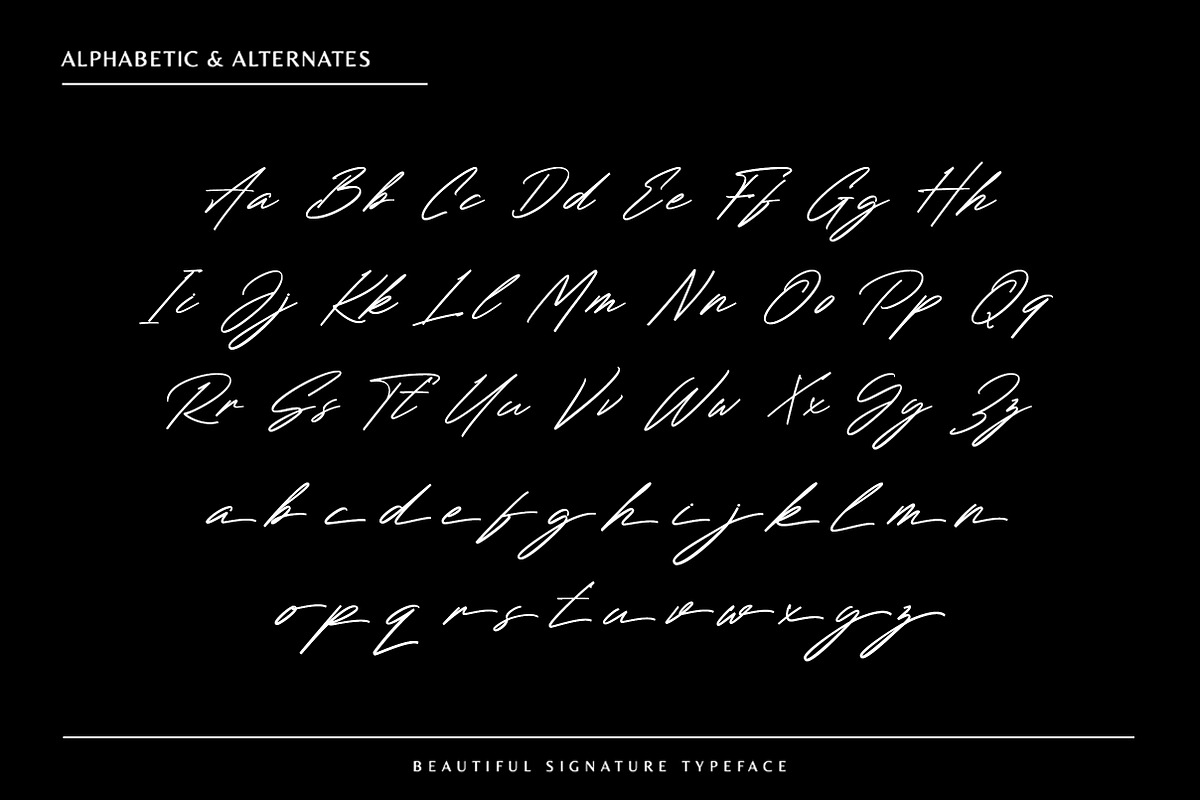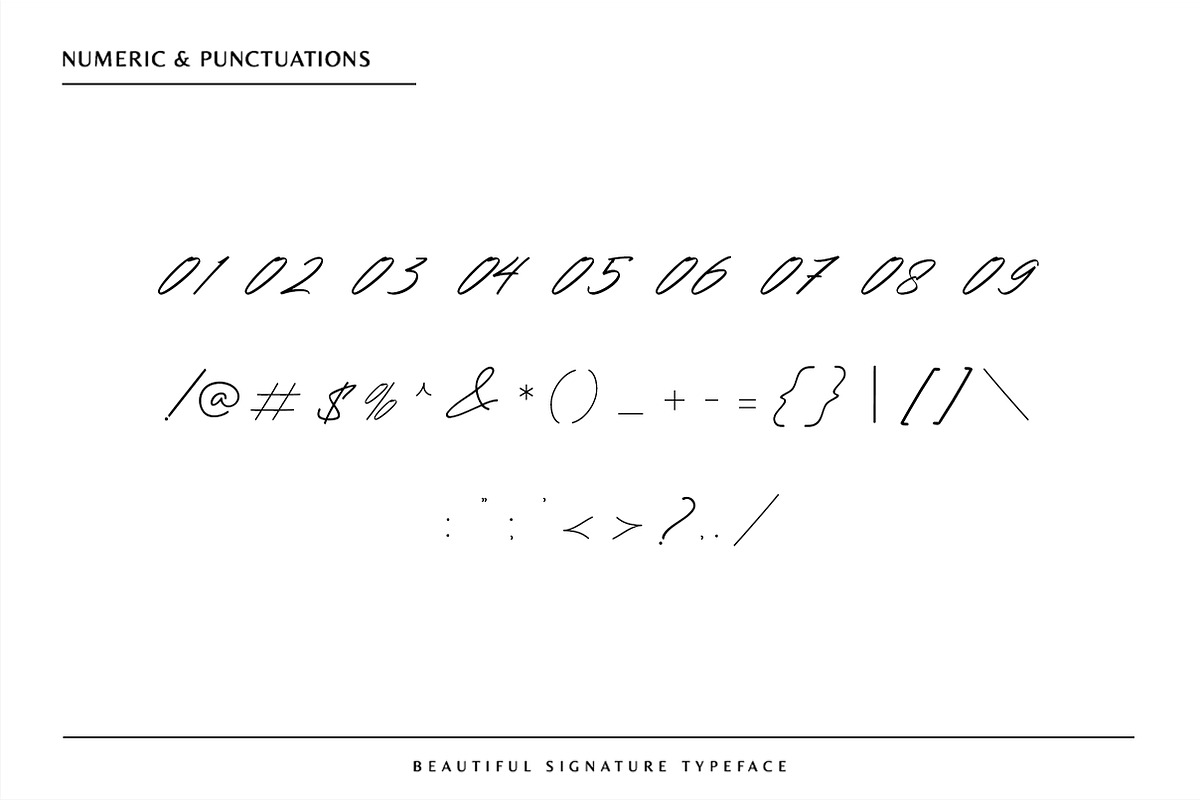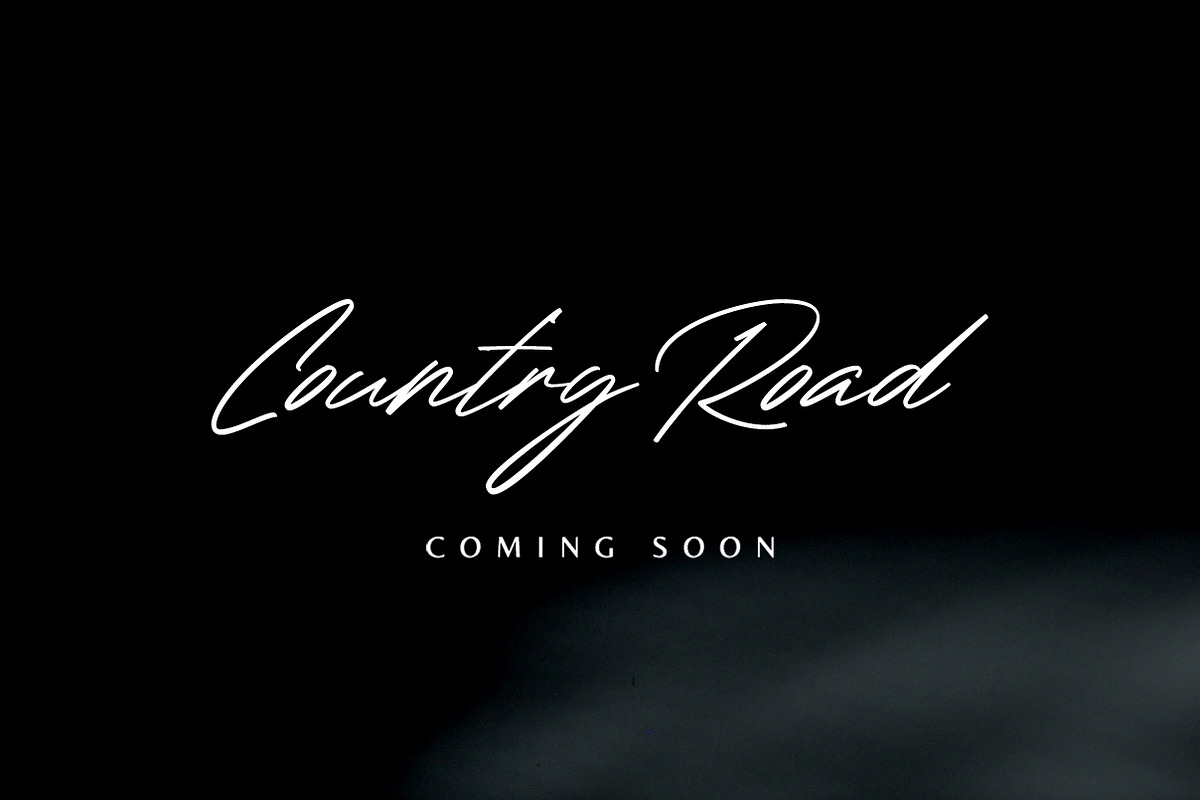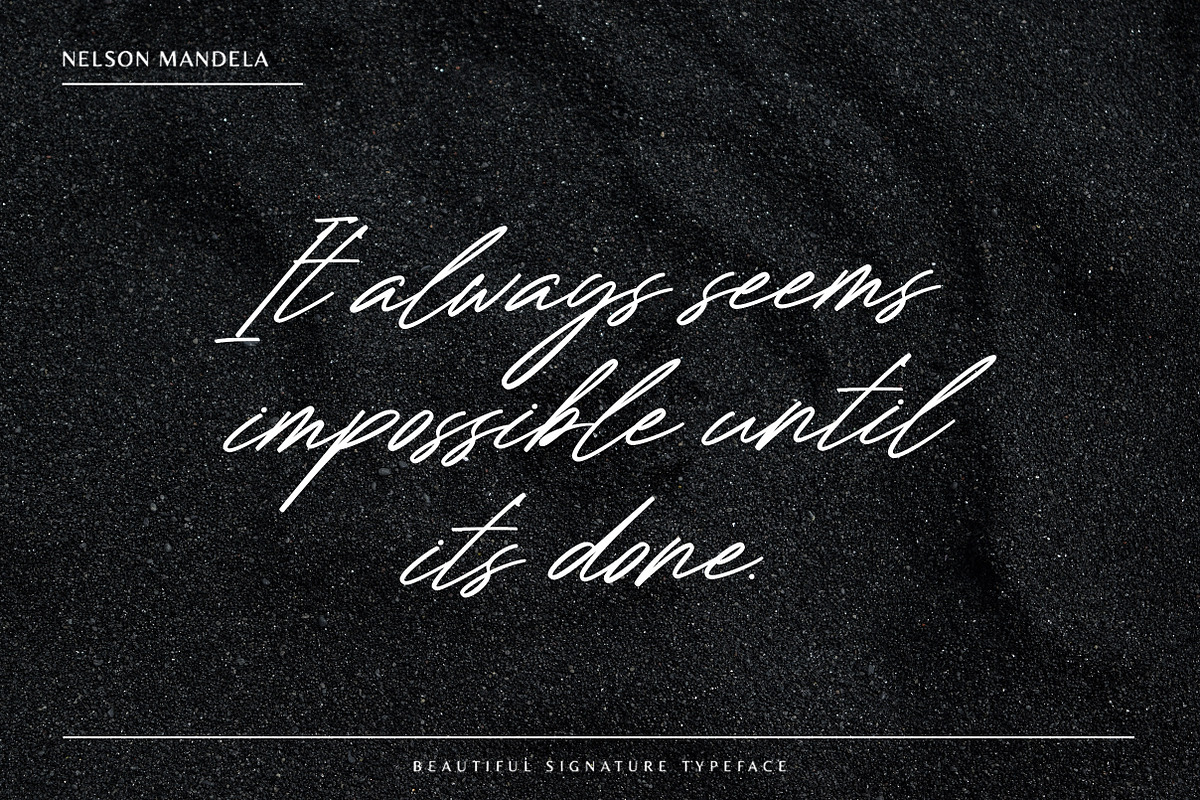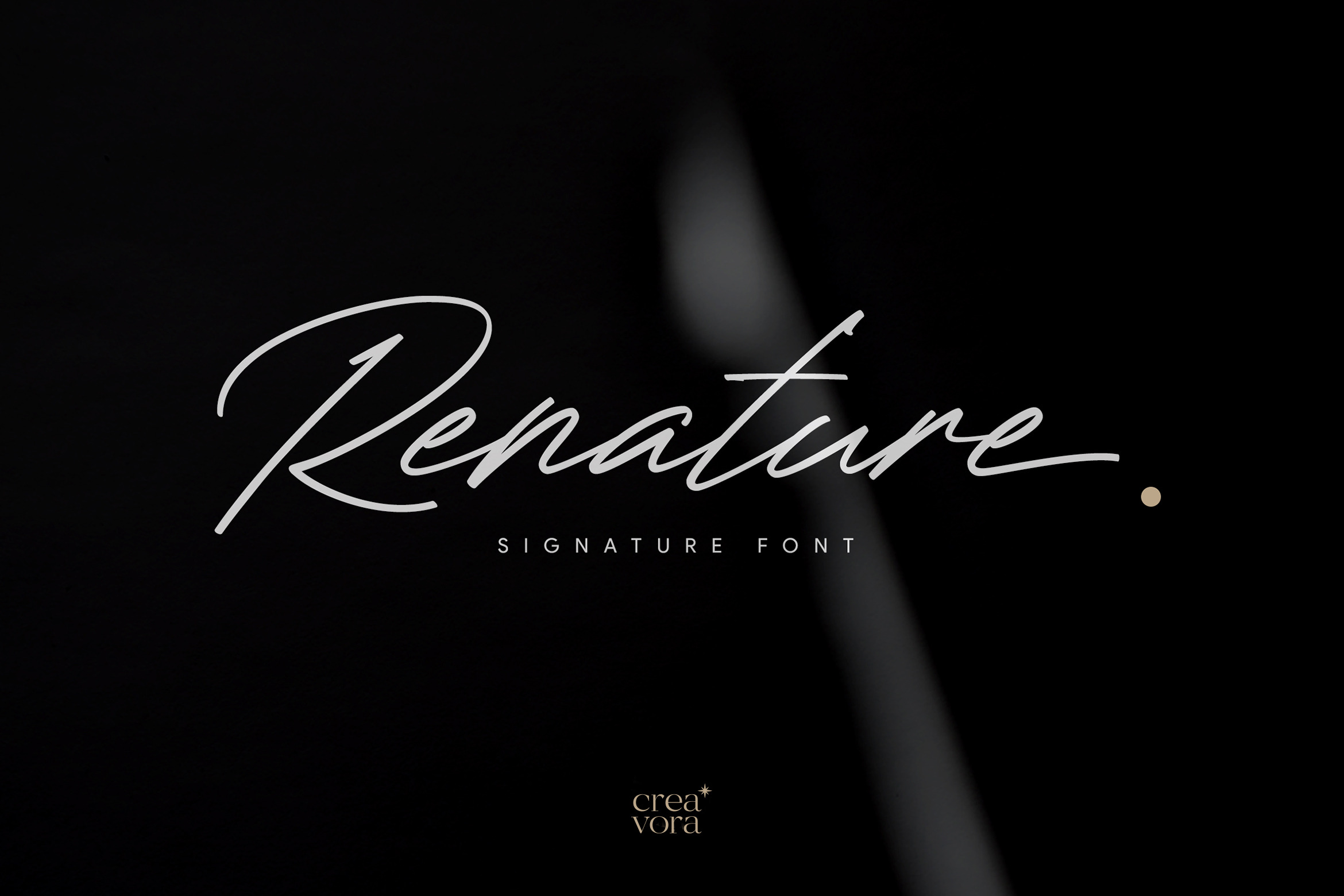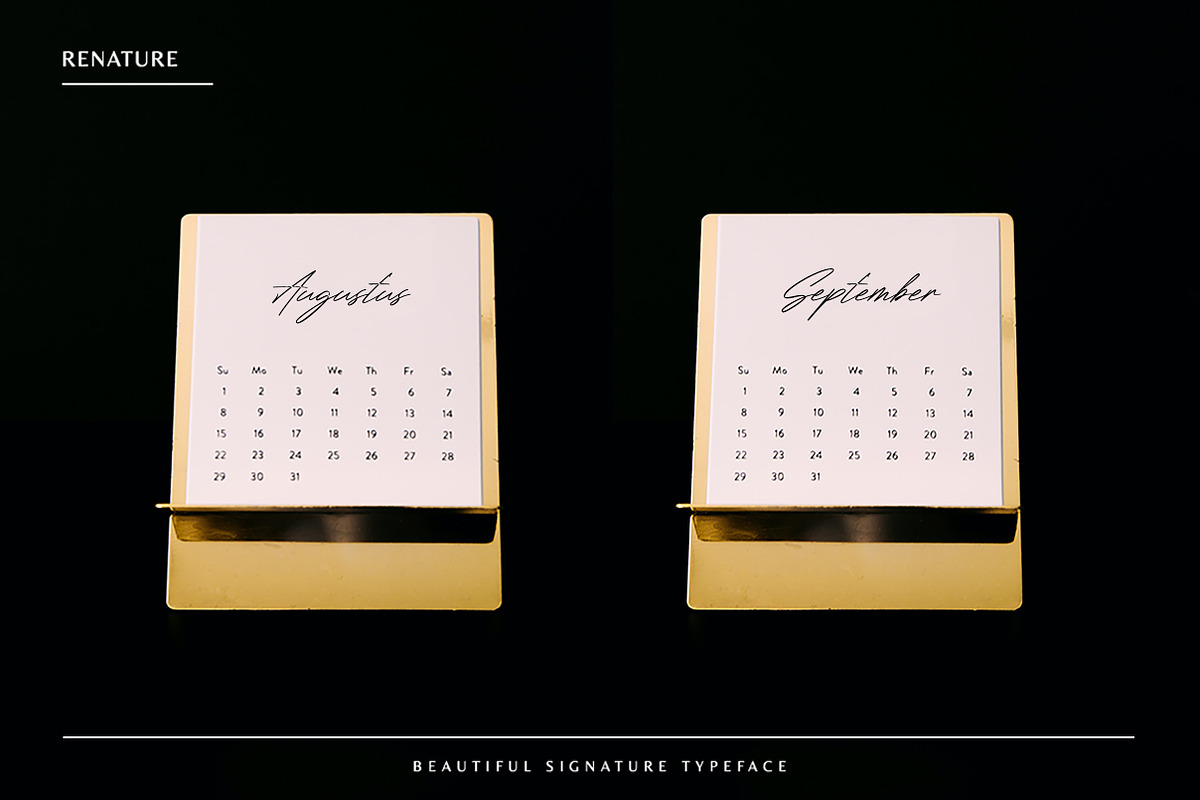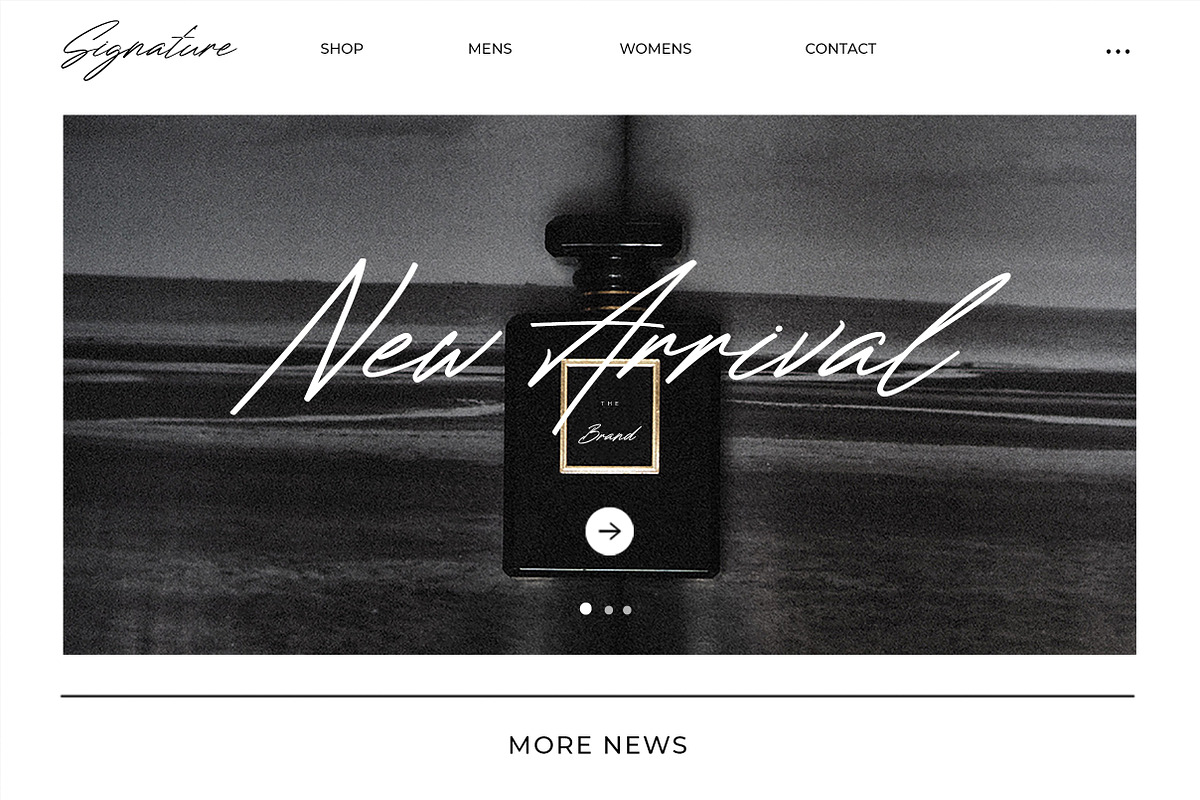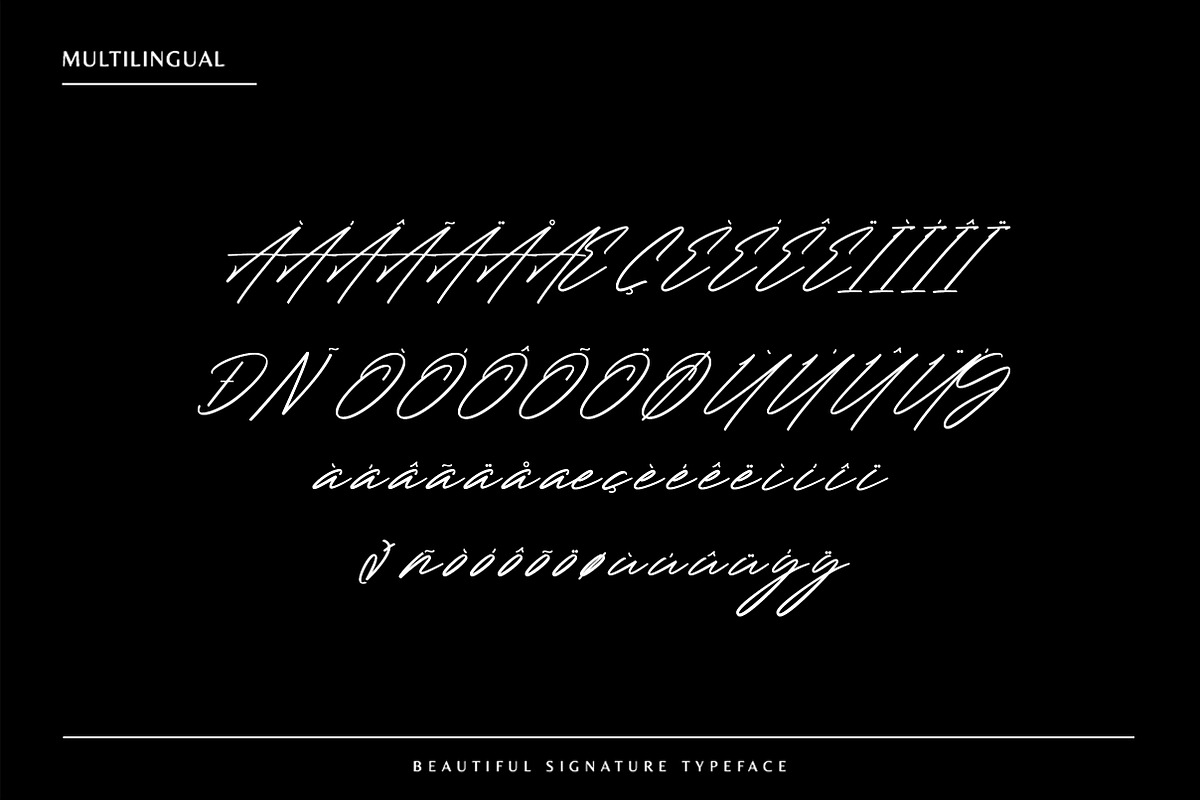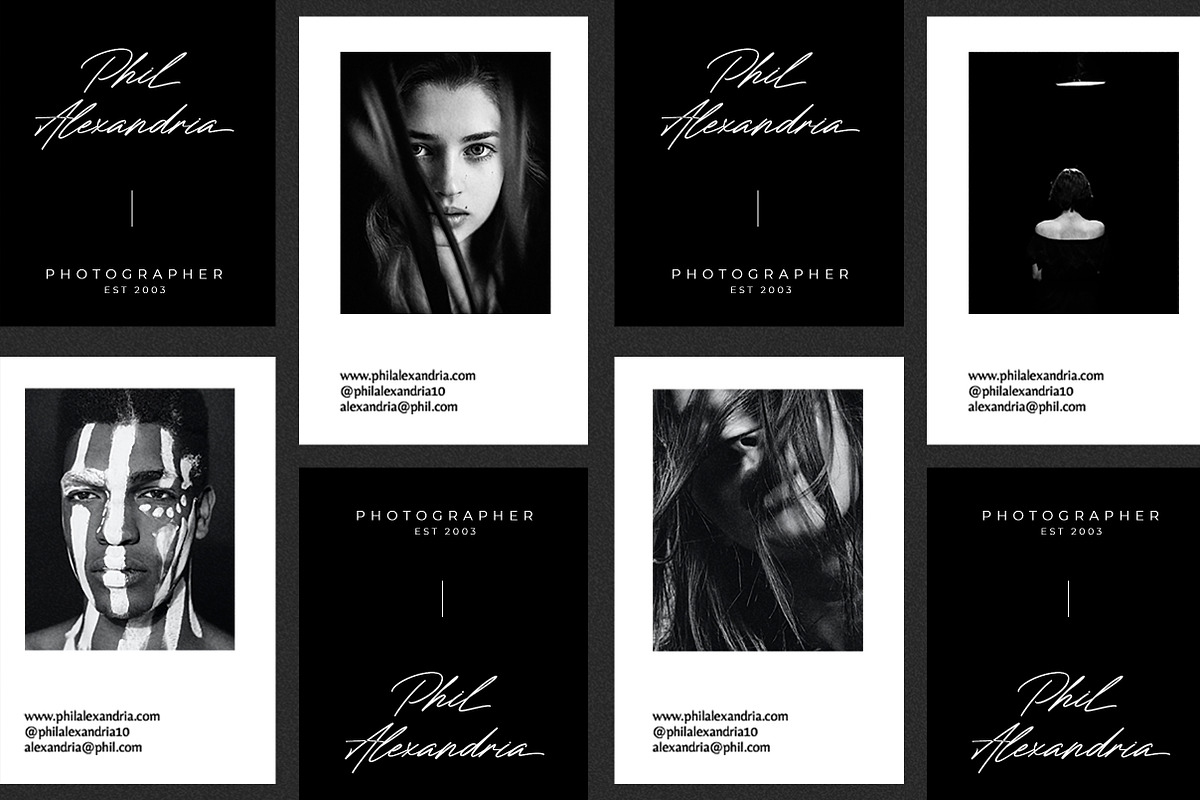
Renature - Signature Font
Renature - Elegant Signature Font.
Renature is a natural handwritten font, it has a luxurious, elegant, and formal nature. This font is suitable for beauty and fashion product logos, movie titles, invitations, stationery, wedding designs, social media posts, advertisements, product packaging, product designs, labels, photography, watermarks, special events, or whatever. Renature comes with a full set of upper and lowercase letters, multilingual symbols, numbers, punctuation marks.
What's the feature included?
- Uppercase Characters
- Lowercase Characters
- Punctuation, Numerical, Ligatures
- Multilingual support for various languages including: French, German, Spanish, Portuguese, Italian, Dutch, Finnish, Swedish, and more.